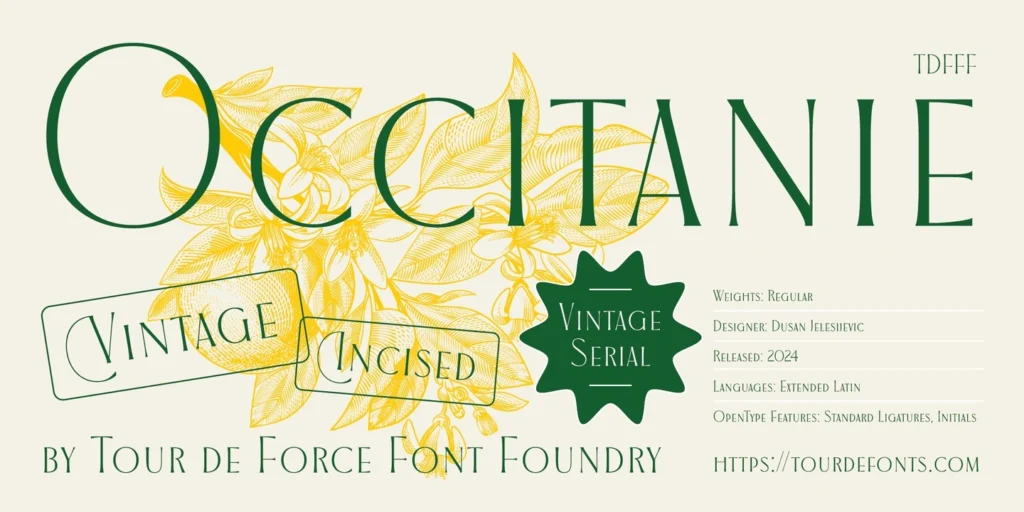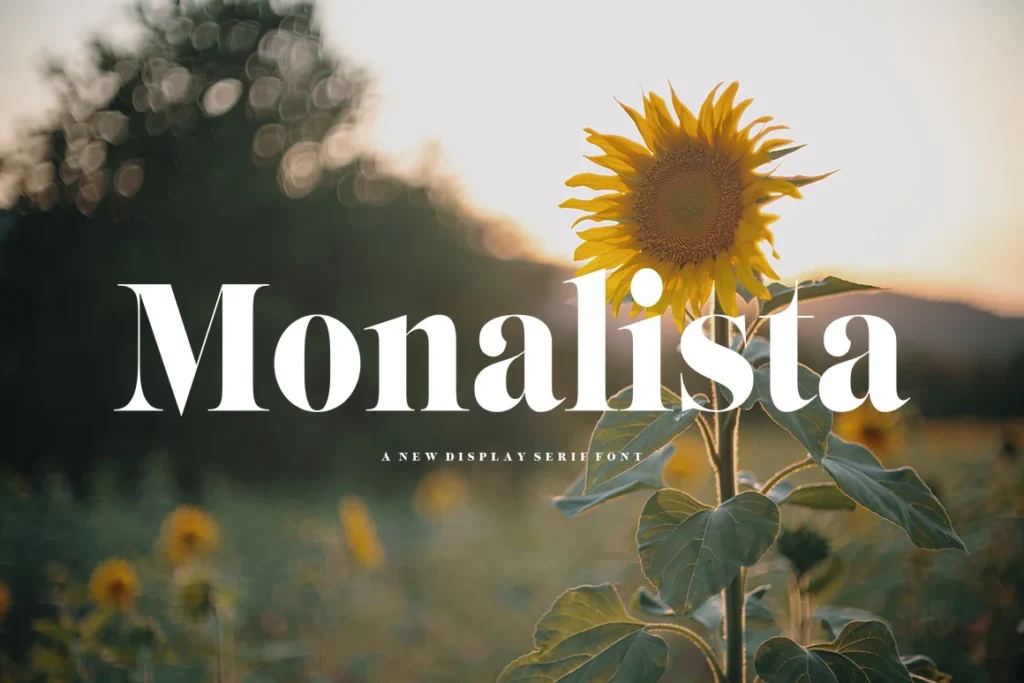
Explore 23 Hottest Modern Fonts Trending in 2025
Explore 23 Stunning Modern Fonts Trending in 2025
Typography is at the heart of any great design, and choosing the right font can completely change the way your work is perceived. Modern fonts have a way of making designs feel fresh, elegant, and relevant, while classic fonts bring a timeless charm and sense of tradition.
As we head into 2025, designers are embracing bold, innovative typography trends that balance creativity with functionality. In this article, I’ll explore what makes modern fonts stand out, reveal this year’s most popular fonts, and show you how to choose the perfect style to suit your project’s needs. Let’s discover the fonts that are shaping the future of design!
Top 23 Modern Fonts for 2025
Modern fonts play a key role in defining a brand’s aesthetic, creating visual appeal, and influencing audience perception. Let’s take a look at the fonts that made headlines in 2025, each of which offers unique features suitable for different branding and design needs.
1. Bodoni Seventy Two
• Overview: Known for its high contrast and elegant style, Bodoni Seventy Two is a refined serif font that brings a luxurious feel to any design. Originally crafted as a modernized take on the classic Bodoni typeface, it adds sophistication and drama to text, making it an ideal choice for industries where elegance is key.
• Application: Often used by Vogue, this font’s bold, attention-grabbing design makes it perfect for fashion branding, magazine headlines, and high-end advertisements.
2. Garamond
• Overview: Garamond is a timeless serif font that’s favored by prestigious brands like Tiffany & Co., which uses it to represent its elegance and heritage. Its balanced proportions and subtle curves make it visually appealing and easy to read.
• Application: Perfect for luxury brands, editorials, and any branding that requires a touch of history and sophistication, Garamond is a versatile font that brings a classic feel to modern-day applications.
3. EB Garamond
• Overview: As a revived version of the historic Garamond, EB Garamond adds modern versatility to a classic font. Known for its editorial-friendly style, it brings a touch of elegance to text-heavy layouts while retaining readability.
• Application: Ideal for editorial layouts, luxury branding, and high-end product packaging, EB Garamond works well in designs that require a timeless and sophisticated look.
4. Mafins
• Overview: With a mid-century modern aesthetic, Mafins balances structured lines with organic shapes, creating a vintage yet contemporary look. This blend makes it particularly appealing for brands seeking a stylish, approachable tone.
• Application: Mafins is often used in contemporary branding, lifestyle products, and design projects where a hint of retro flair is desired.
5. Occitanie
• Overview: Occitanie draws inspiration from vintage craftsmanship, with a touch of elegance and tradition. Its detailed serif design and subtle textures make it an excellent choice for brands focused on heritage and artisanal products.
• Application: Perfect for artisanal and handcrafted brands, Occitanie is used in logo designs, product labels, and packaging that emphasize quality and authenticity.
6. Monalista
• Overview: Known for its bold and elegant design, Monalista has a distinct personality that shines in logos and personal branding. With a unique blend of structure and flair, it’s ideal for adding character to minimalist designs.
• Application: Monalista works best in personal logos, monograms, and branding where individuality and style are paramount.
7. Chicago Makers
• Overview: Chicago Makers combines a modern vibe with classic serif forms, making it ideal for brand elements like logos and social media graphics. Its readability and bold presence make it versatile for various applications.
• Application: Great for brands that want a contemporary yet approachable look, Chicago Makers is frequently used in digital ads, logos, and social media visuals.
8. Mirador
• Overview: A neoclassical serif, Mirador blends traditional serif aesthetics with a modern edge. Its high contrast and stylized letterforms give it a distinctive, sharp appearance.
• Application: Ideal for brands that aim to stand out with an elegant but bold style, Mirador works well in fashion, luxury branding, and high-contrast layouts.
Urban and Modern Display Fonts for 2025
Urban display fonts bring an edgy, bold personality to design, tapping into trends rooted in street art, graffiti, and expressive typography. Here’s a look at some popular urban fonts that are defining visual styles this year, each contributing a unique character suitable for different creative and branding needs.